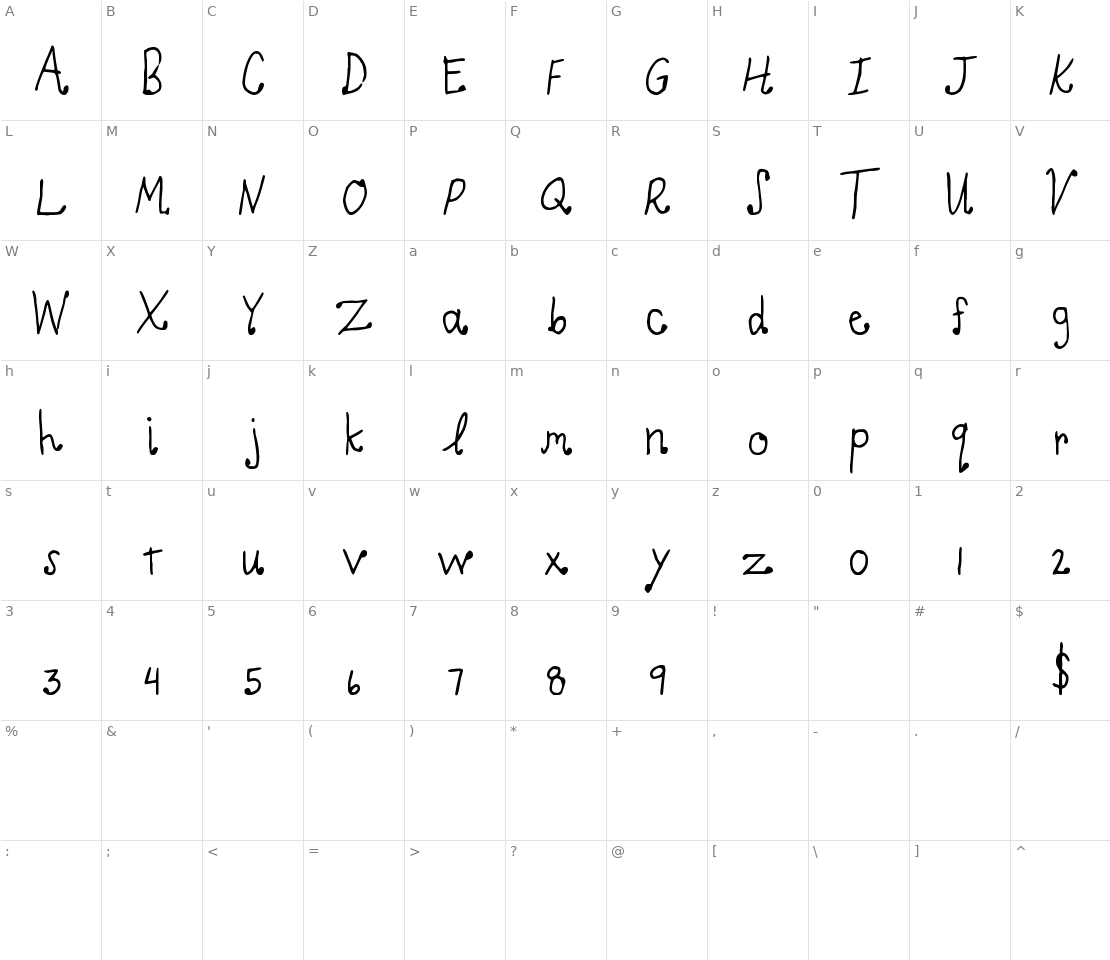
Light Curls
Light Curls is a thin, casual handwritten face from Xerographer Fonts with neat, buoyant letterforms that feel like tidy everyday handwriting with a slightly playful lift. The light weight keeps things airy and approachable, making it a good fit for personal projects, greeting cards, informal branding, or anywhere you want handwritten charm that stays legible without feeling heavy.